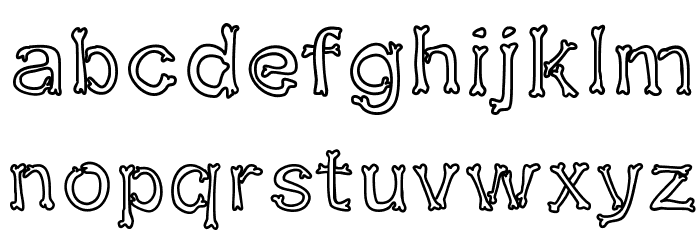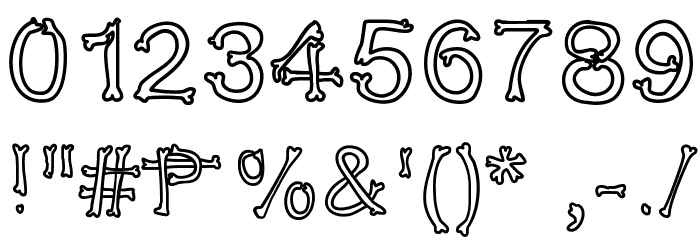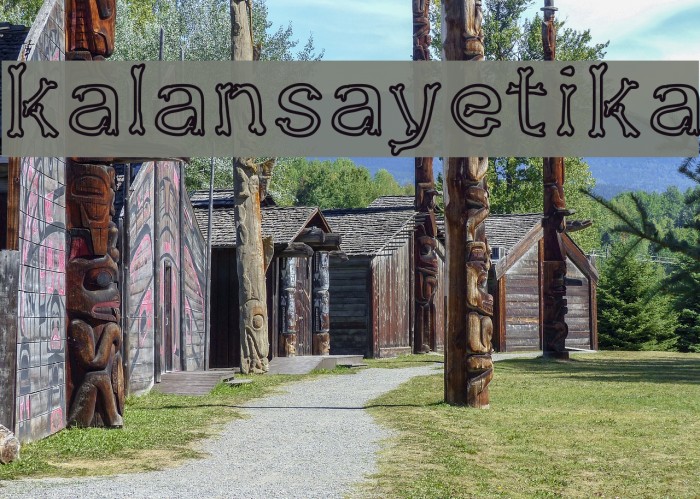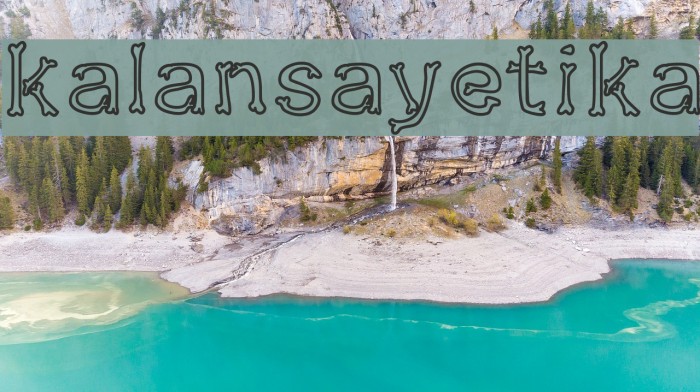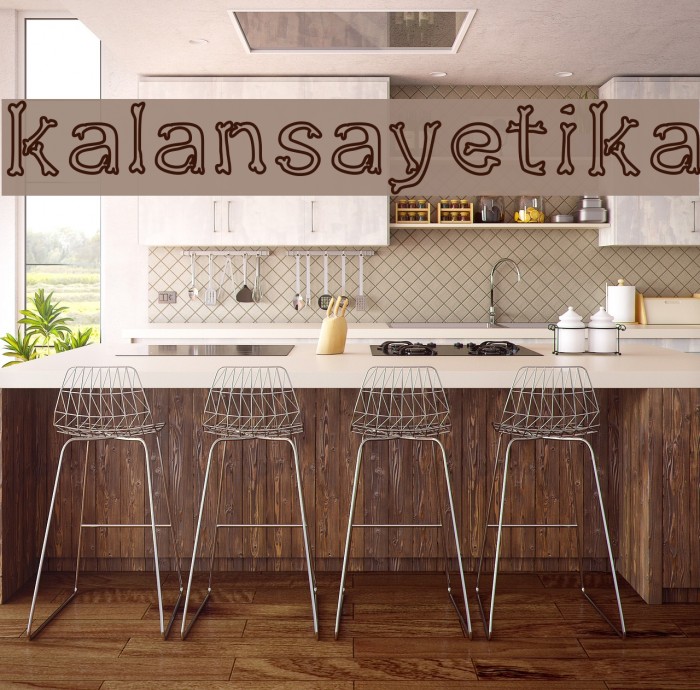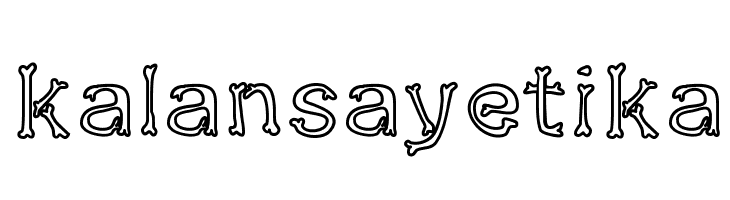
kalansayetika Font
This font features a playful and quirky design with a hand-drawn aesthetic. Each character is outlined with a bold, uneven stroke, giving it a whimsical and cartoonish appearance. The letters have a slightly irregular shape, adding to the casual and informal feel. The font maintains a consistent weight throughout, with medium contrast in stroke thickness. The characters are well-spaced, providing a balanced and readable text. This font is ideal for projects that require a fun and lighthearted touch, such as children's books, party invitations, or playful branding.
A playful, hand-drawn font with bold outlines and a whimsical style.
- Proposed Projects: Children's books, party invitations, playful branding, comic strips.
- Overall Style: Whimsical